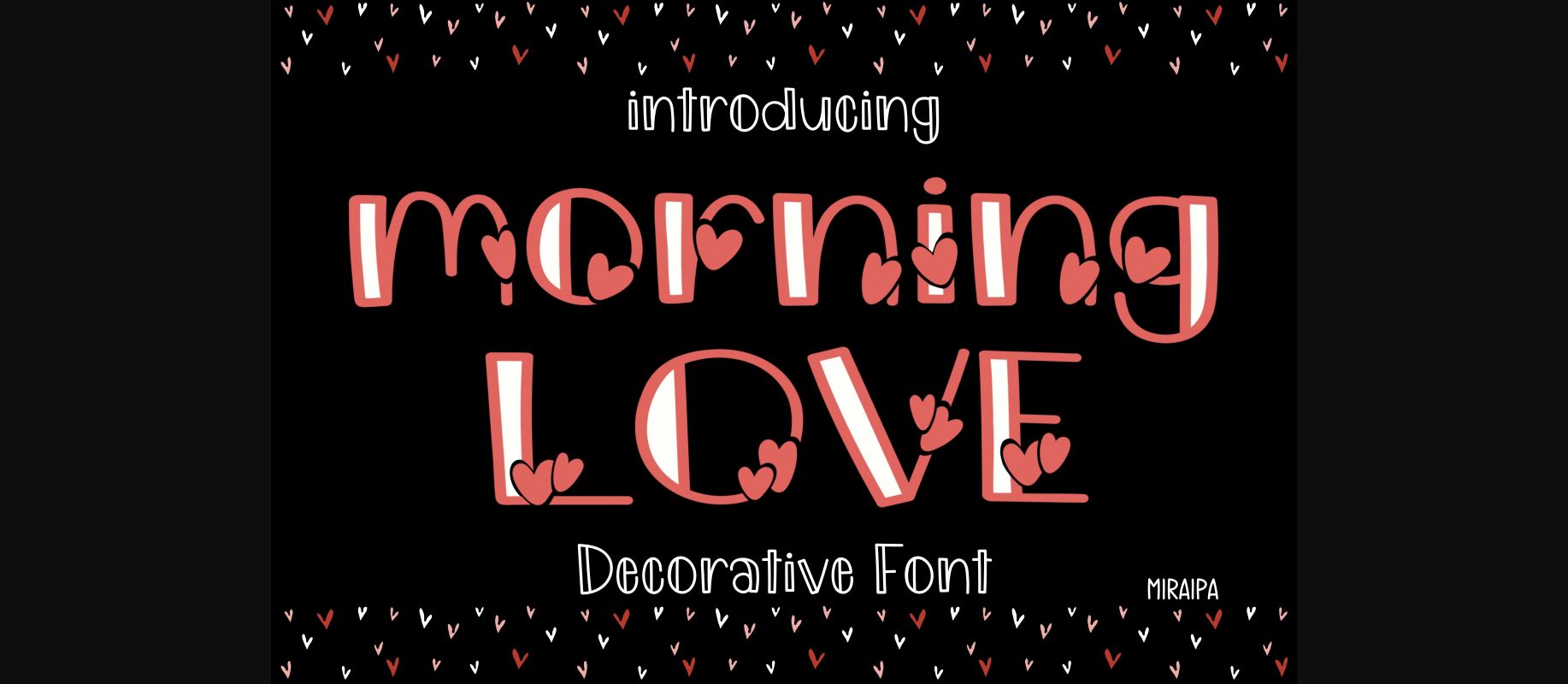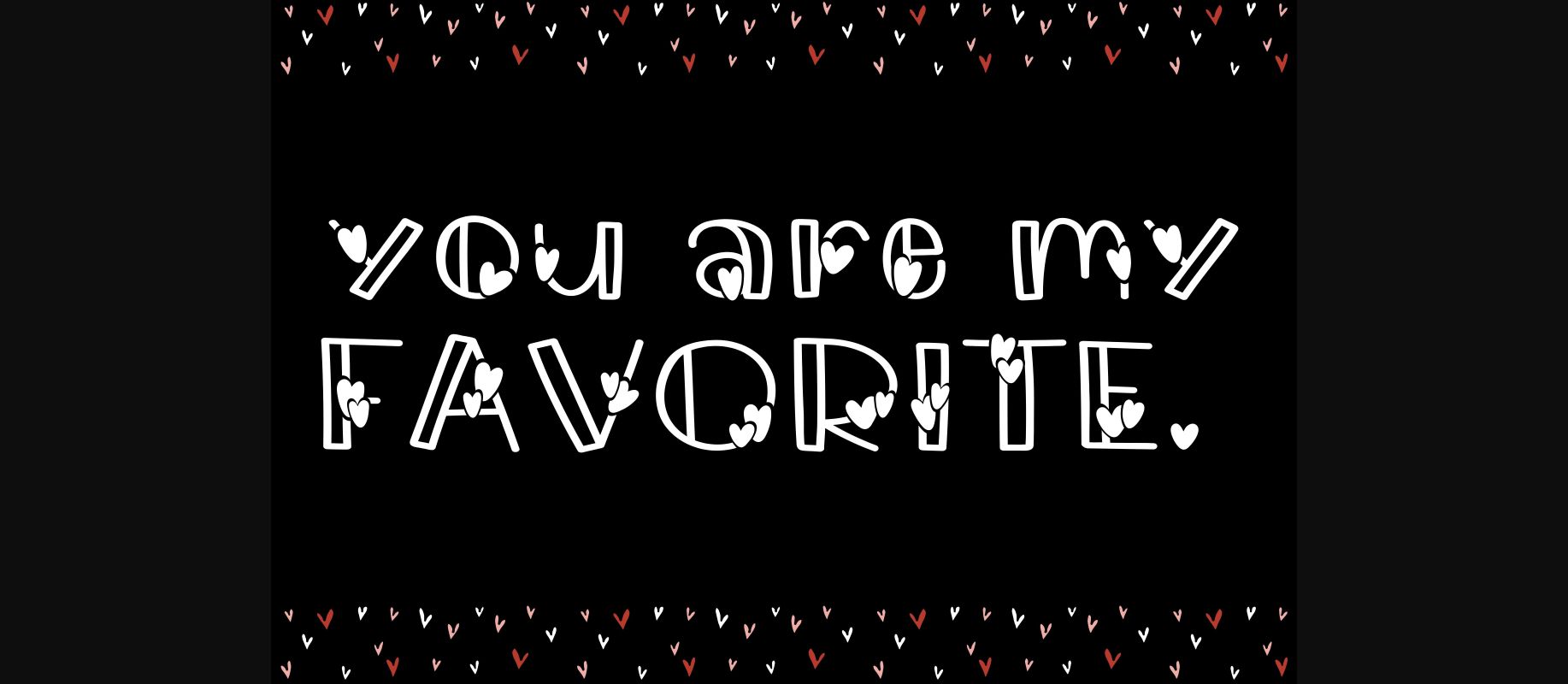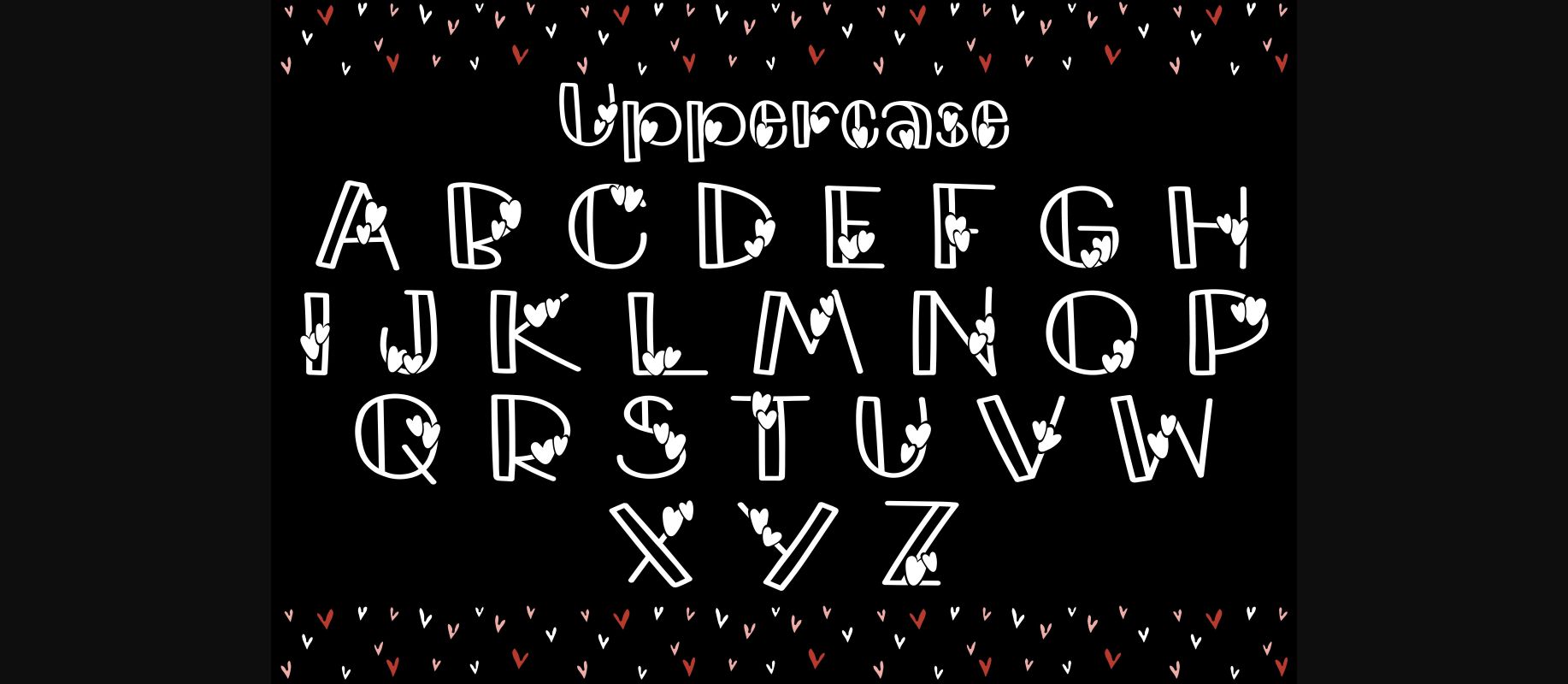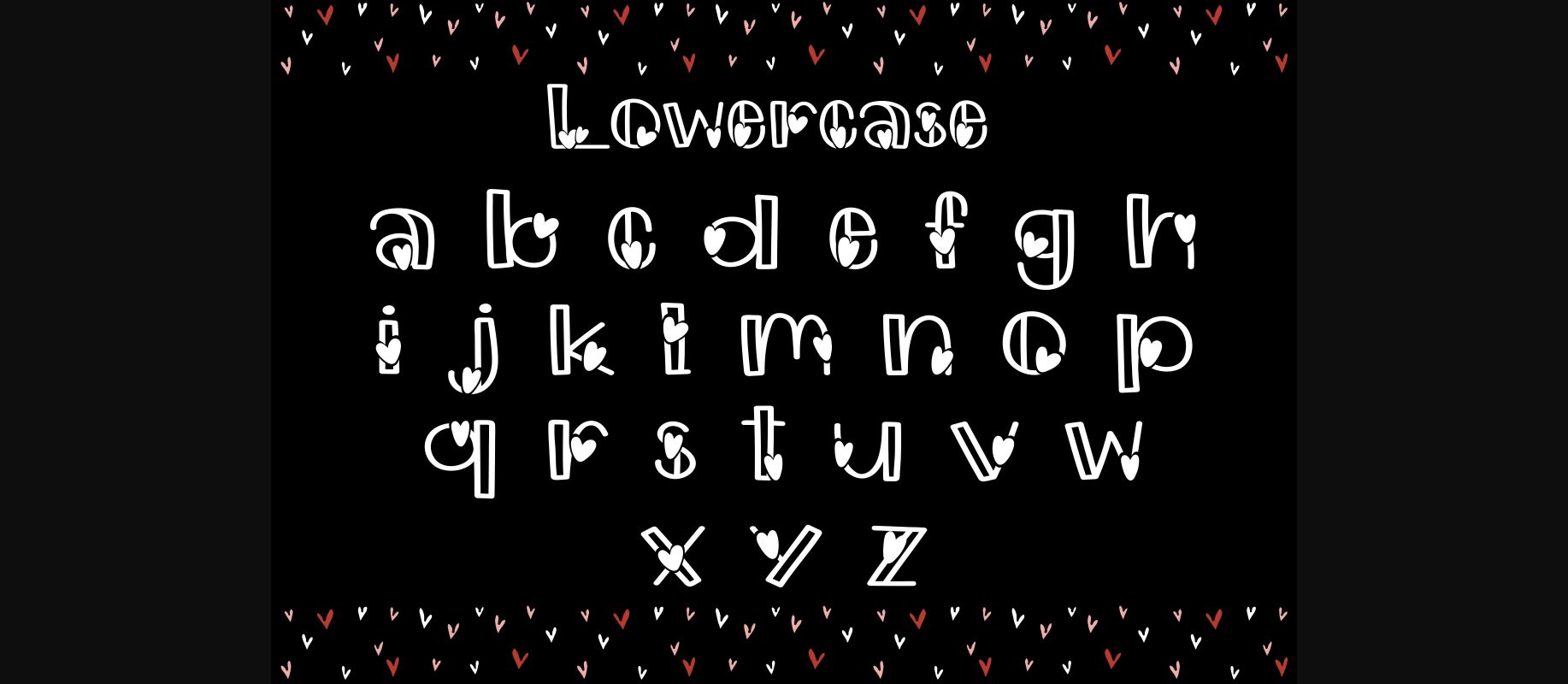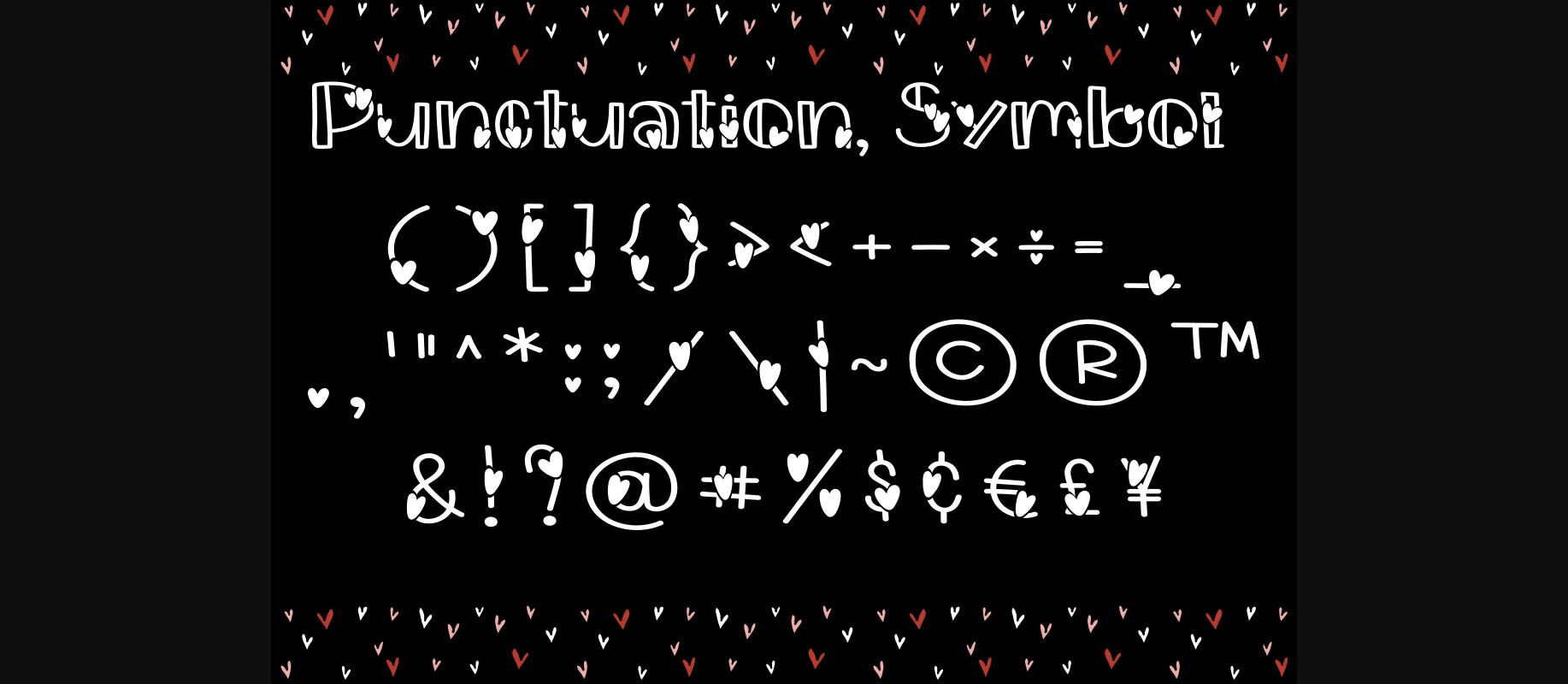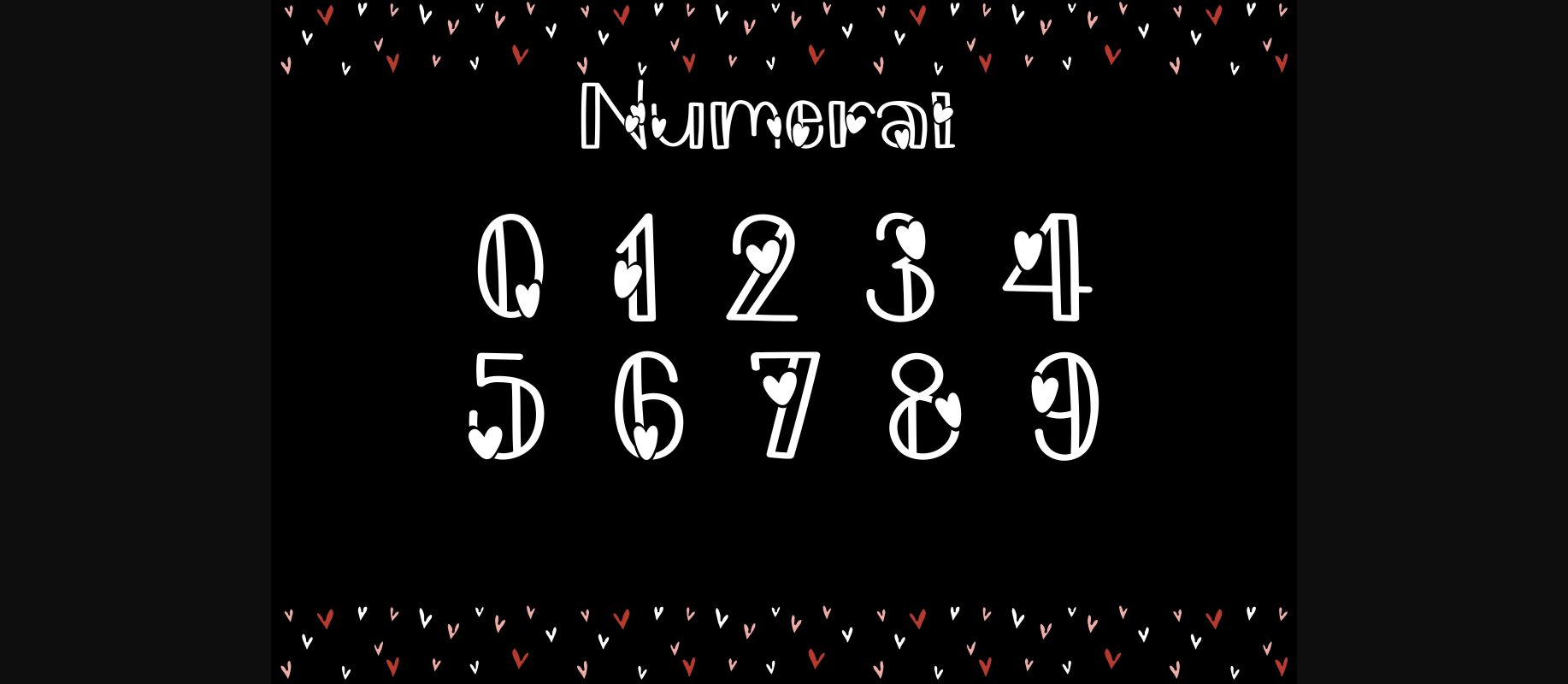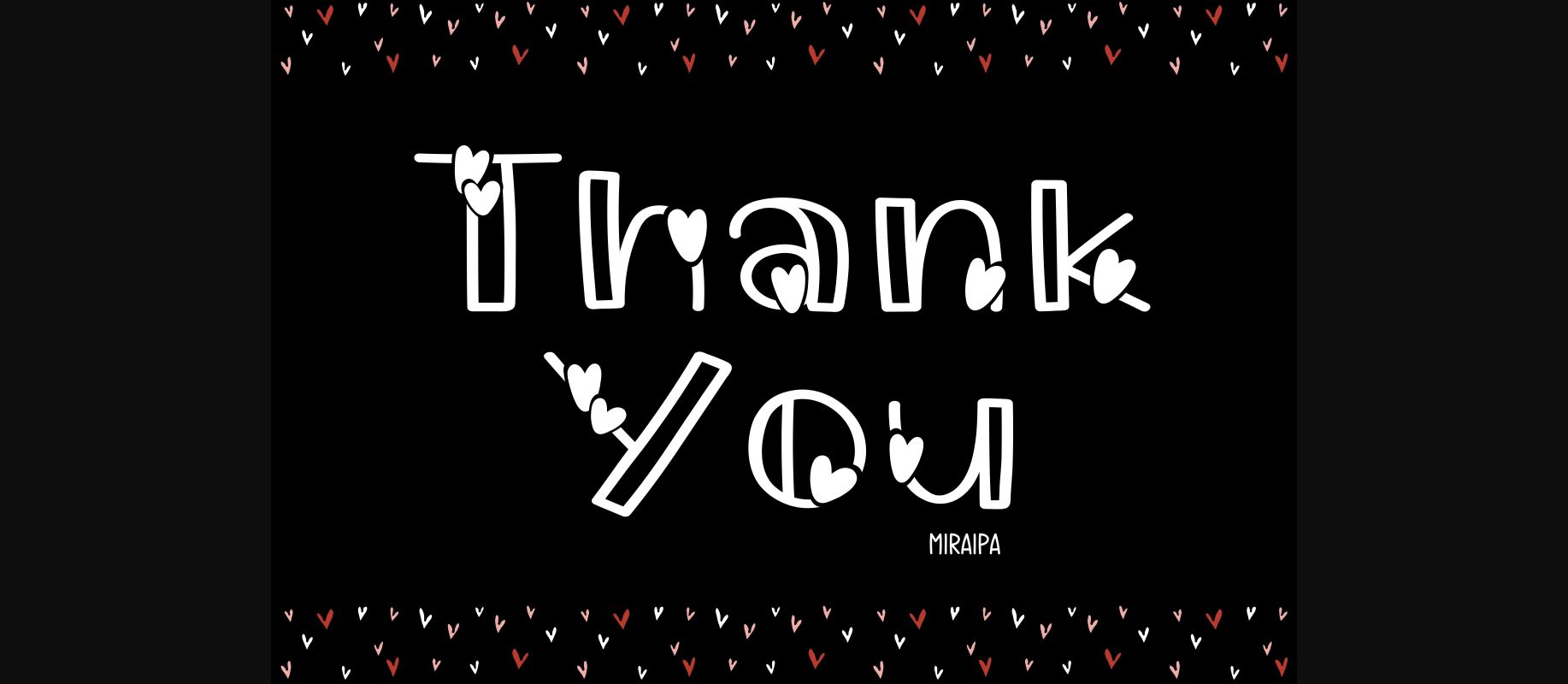
HomeDecorative FontsMorning Love Font Decorative Fonts Morning Love Font FacebookXPinterestWhatsApp 1 of 9 ... Morning Love Font Poster 2... Morning Love Font Poster 3... Morning Love Font Poster 4... Morning Love Font Poster 5... Morning Love Font Poster 6... Morning Love Font Poster 7... Morning Love Font Poster 8... Morning Love Font Poster 9... About Morning Love Font Morning Love is a fun and lovely decorative font. Add it to your most creative ideas, and notice how it transforms them into authentic pieces of art! DOWNLOAD NOW People also explored Wish Day Font Valentine Signature Font Billiardy Font Krysttal Spears Font California Font Red Azalea Font Eternal Worse Font Animals Font Vorticella Font 465 0 TagsMorning Love Font Previous articleHeart FontNext articleGingerbread Font LEAVE A REPLY Cancel reply Comment: Please enter your comment! Name:* Please enter your name here Email:* You have entered an incorrect email address! Please enter your email address here Website: Save my name, email, and website in this browser for the next time I comment. Personal Use Free Adrenaline Personal Use Free Read more about this font Token No 721 Personal Use Free Read more about this font Happy Santa Personal Use Free Read more about this font Butter Belly Personal Use Free Read more about this font BLOG Using Fonts in Digital Marketing: Tips to Strengthen Your Brand Identity In the realm of digital marketing, every visual element plays a crucial role in shaping a brand's identity, and fonts are no exception. The... Fonts That Capture the Spirit of New York City Top 7 Google Fonts Alternatives for Faster and Privacy-Friendly Web Design (2025) 5 Fonts That Will Dominate Design Trends in 2026